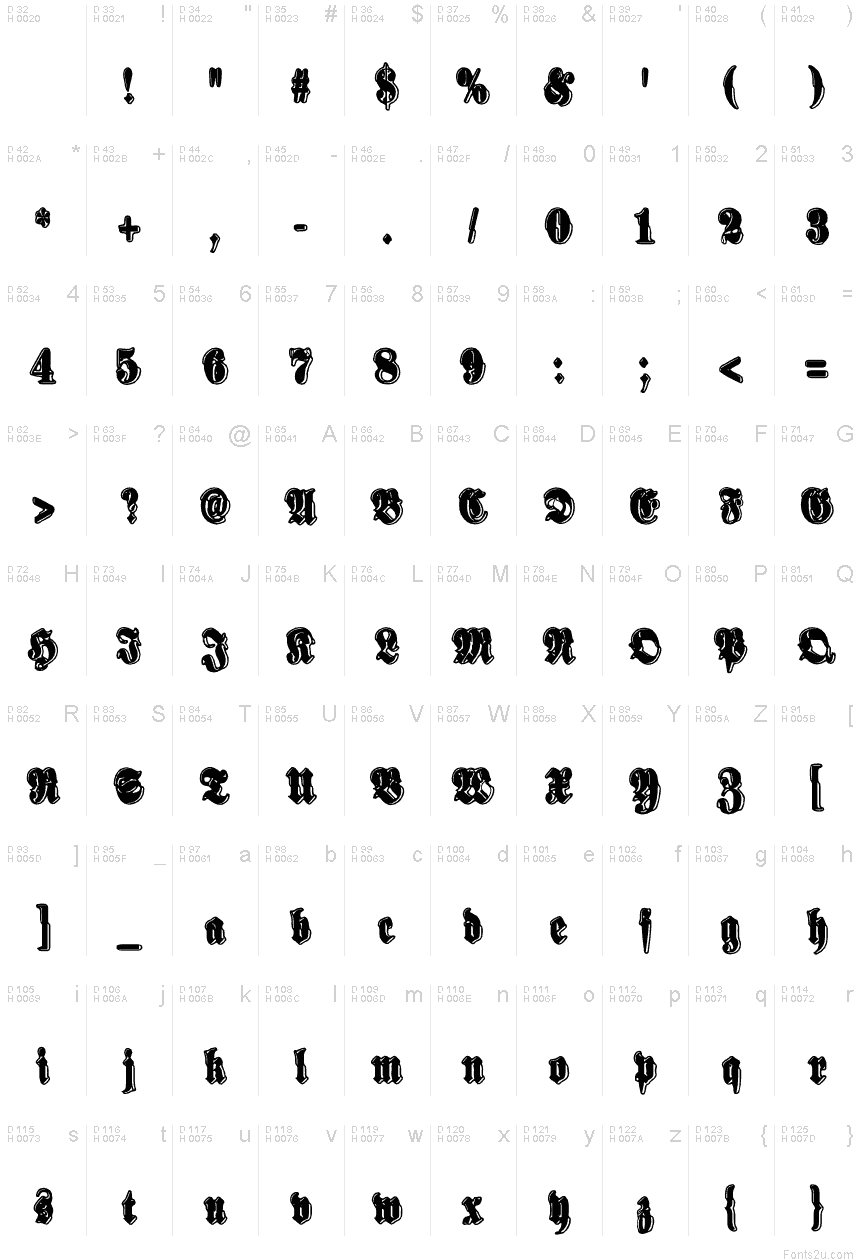
Sinisenharmaa Perkele
Sinisenharmaa Perkele by Junkohanhero is a free medieval blackletter font with oversized, densely packed forms and an aggressively ornamental silhouette. Broad curves, hooked tips, and sharp interior cuts resemble carved shapes, with irregular white slashes breaking through the dark strokes.
It speaks most directly to metal and gothic audiences, making it a natural fit for album covers, concert posters, and apparel graphics. In dark fantasy publishing, its tangled forms can turn a chapter opener or cover line into part of the illustration.